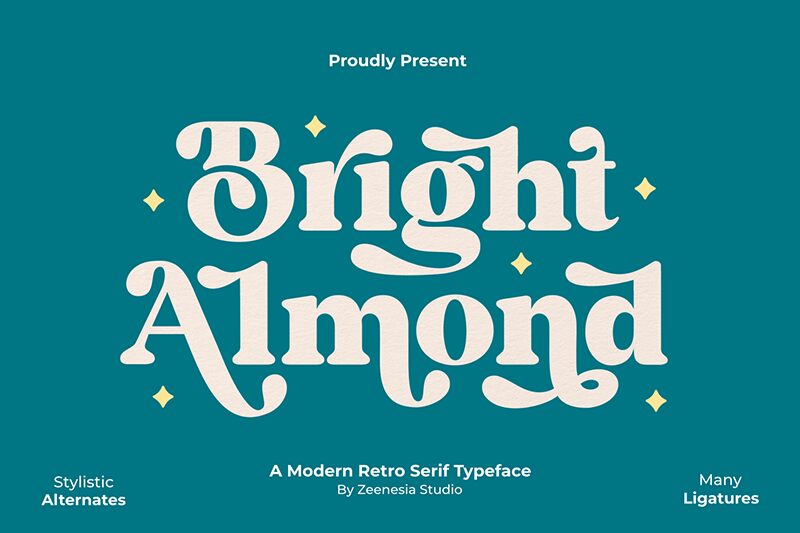
Bright Almond font by Zeenesia Studio is a bold retro display typeface that exudes classic charm and timeless elegance. With its vintage-inspired design and authoritative presence, it embodies an exquisite balance between nostalgic appeal and stylish modernity. Let your readers appreciate the beauty of this free serif font intended for awe-inspiring heading applications.
Use it in brand packaging, bottles’ labeling, general branding, posters with short titles, book covers and chapters/title covers, advertisements – both print and digital. Writing quotes can also be executed using Bright Almond as well as websites’ welcome messages when short.